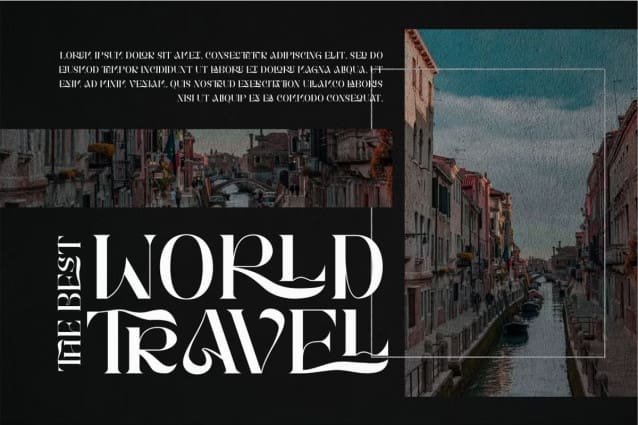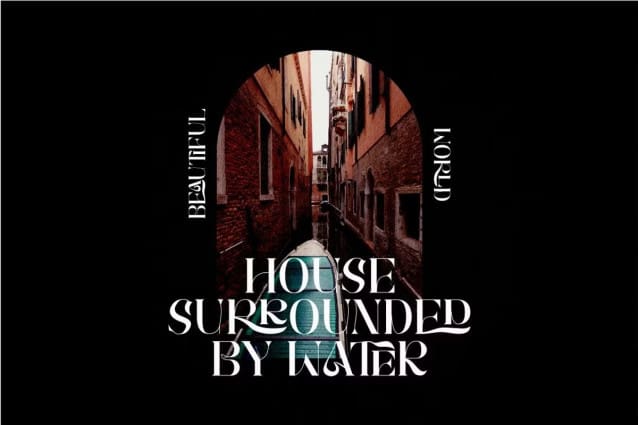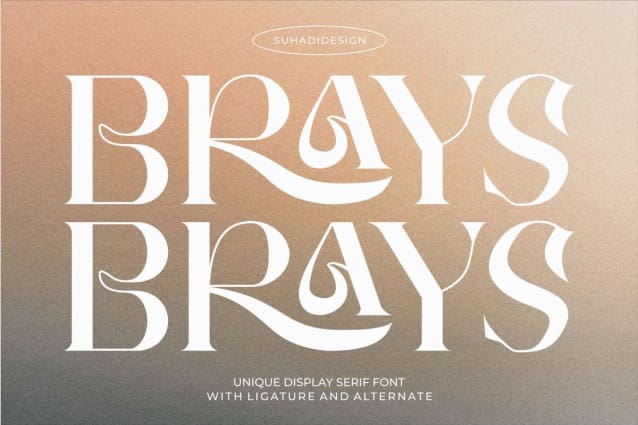
Brays Font
Brays Font is a font with many ligatures that is very unique and sought after, comes with a stylish style to become a market favorite. We keep this font looking elegant, classy, ​​easy to read, stylish, attractive and easy to use.
Brays Font is a great choice for beauty brands, magazines, travel, newspapers, books, brand names, branding, quotes, album covers, and other projects. The Braysfont is here to take the quality of your designs to a higher level.